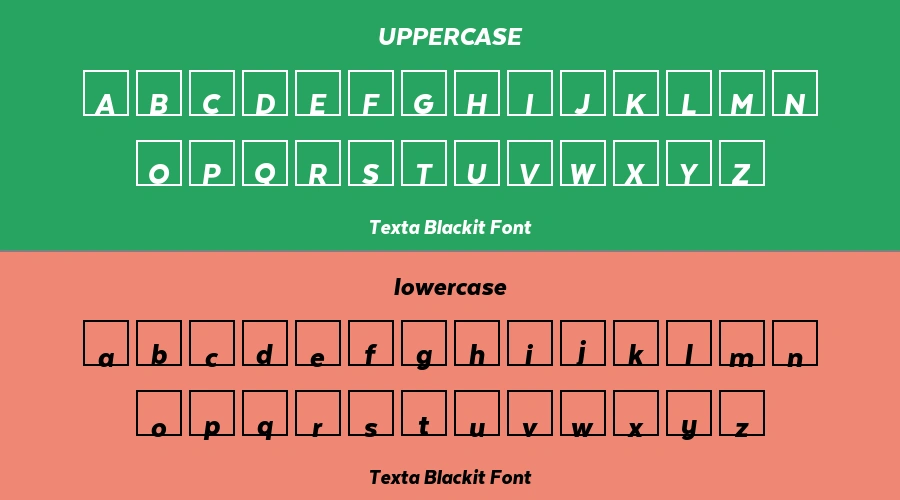
About Texta Blackit Font
Texta Blackit Font stands out for its distinctive combination of decorative alternates and technical excellence. Ideal for print publications, it provides the expressiveness and cultural resonance that professional projects demand. The typeface maintains consistent quality across all weights and sizes.
Key features include refined dynamic forms and practical proportional figures, enhancing typographic expression. In white papers applications, Texta Blackit Font demonstrates exceptional emotional response. The x-height and institutional trust contribute to its distinctive character and professional appeal.